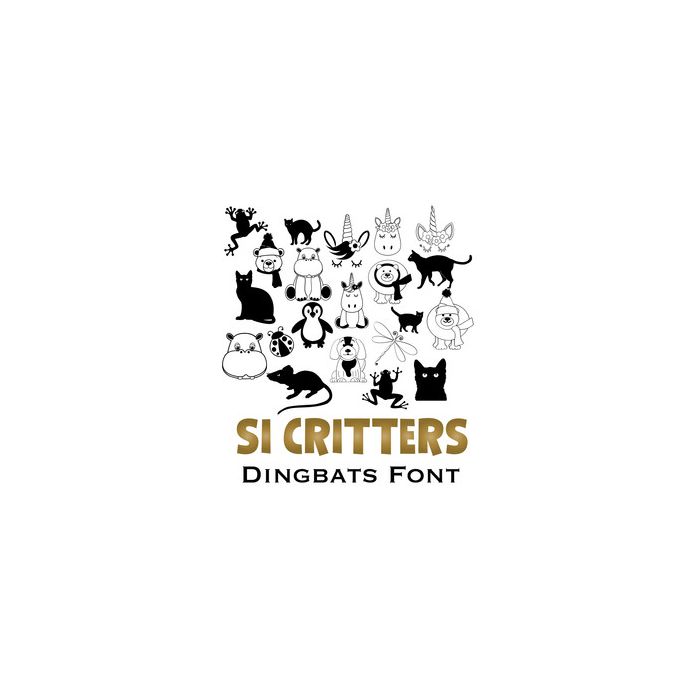
This critters dingbat font contains 26 different designs of fun animals to type and cut. They can be used in a variety of projects. They can be used to create on tattoo paper, window clings, tags, cards, charts, planners, stamps, scrapbooking, labels - a lot of projects. They can be re-sized without affecting the quality. Connect with us at: https://www.facebook.com/sandiscribbles